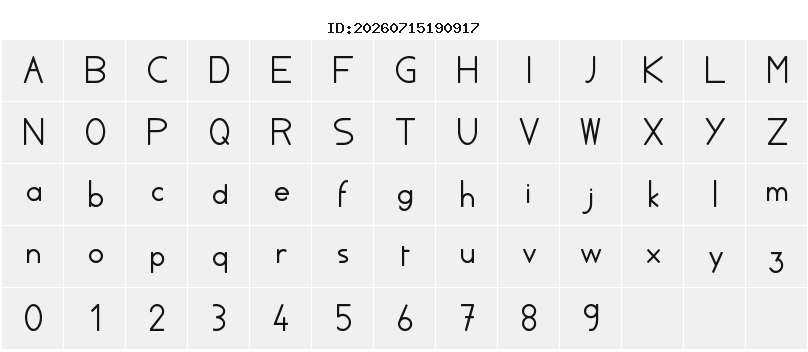
• Font Name: AylaCSscript
• Font ID: AylaCSscript:Version 3.00
• Full Font Name: AylaCSscript
• Version: Version 3.00 March 17, 2006
• PostScript Name: AylaCSscript
About AylaCSscript.ttf
AylaCSscript.ttf is a modern, elegant sans-serif font designed for ultimate readability and visual harmony. Perfect for branding, headlines, web design, and print materials.